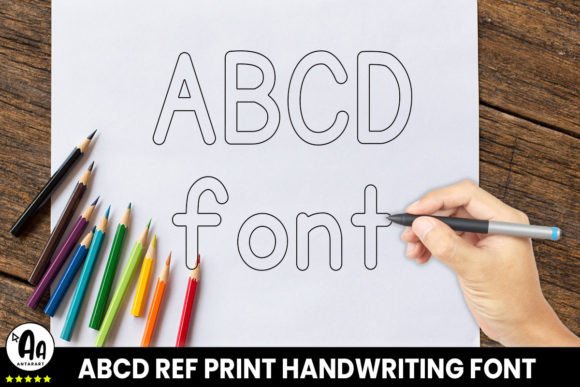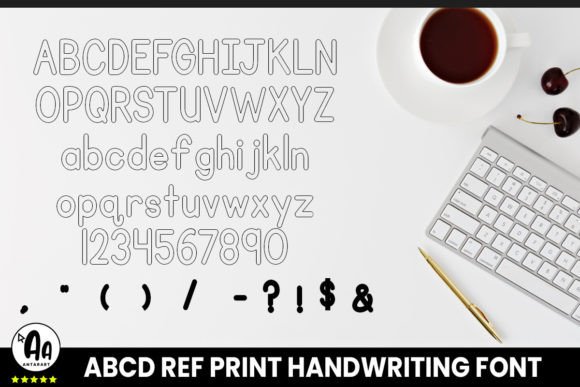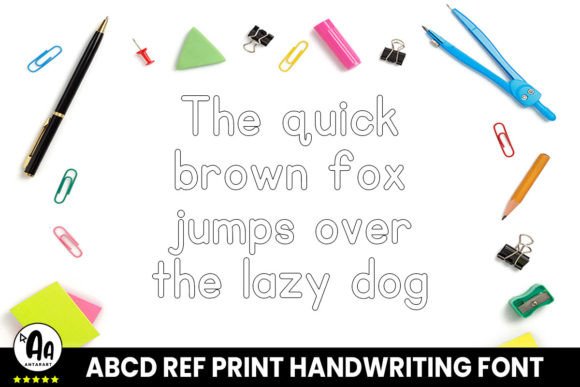
Unlocking the World of Alphabet Learning with ABCD Ref Outlined Font
As a child, I remember sitting at my desk, scribbling away with my favorite pen, eager to master the intricate dance of letters that would one day turn me into a proficient reader. The ABCD Ref Outlined Font brings back those nostalgic memories, as it’s designed to make learning the print alphabet a joyous and interactive experience.
Based on the D’Nealian Method US school, this efficient outlined display font is a game-changer for educators and designers looking to create engaging and educational materials. With the ABCD Ref Outlined Font, you can generate thousands of worksheets that will captivate students and make learning a breeze. Its value lies in its ability to provide a unique learning experience that’s both fun and effective.
For designers, the ABCD Ref Outlined Font is a valuable resource that offers endless possibilities for creating interactive and educational content. Whether you’re designing worksheets, educational materials, or even children’s books, this font is sure to bring a touch of creativity and playfulness to your projects.
Key Features of Abcd Ref Outlined Font
- Unique Characteristics: Abcd Ref Outlined Font features a unique outlined design, adding a touch of sophistication and elegance to any text-based application.
Abcd Ref Outlined Font Review
Overall, I was pleasantly surprised by the ✨ elegance and ✨ versatility of the Abcd Ref Outlined Font. It’s clear that the designer put a lot of thought into creating a font that’s both modern and timeless.
- ✨ Beautiful outline effect that adds depth and interest to text.
- ✨ Wide range of sizes and styles, making it suitable for various design applications.
- ✨ Friendly and approachable feel that makes it perfect for branding and marketing materials.
- ⚠️ Limited language support might make it less suitable for multinational designs.
- ⚠️ Some characters may not display correctly on certain platforms or in specific contexts.
Overall, I would give the Abcd Ref Outlined Font 4 out of 5 stars. It’s a great choice for designers who want a clean, modern font that’s easy to use and customize. Just be aware of the potential limitations and adjust your design accordingly.
Tips for Getting the Most Out of Abcd Ref Outlined Font
Use Abcd Ref Outlined Font for titles, headings, and other emphasis text to add a touch of sophistication and elegance.
Pair Abcd Ref Outlined Font with other fonts to create a unique and visually appealing typography combination.
Experiment with different font sizes and colors to achieve the desired effect.
Abcd Ref Outlined Font is ideal for:
Designing business cards, resumes, and other professional documents.
Creating presentations, reports, and other visual content.
Developing branding and marketing materials, such as logos and brochures.